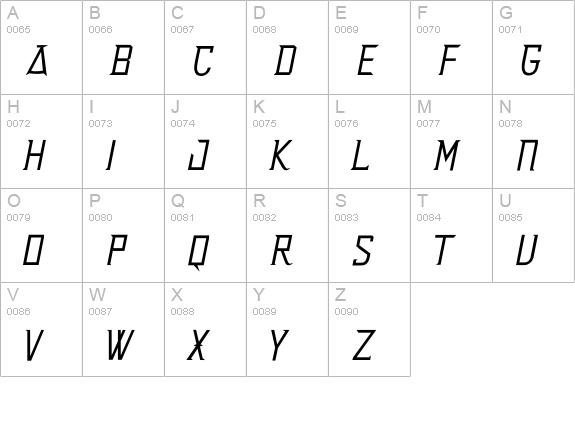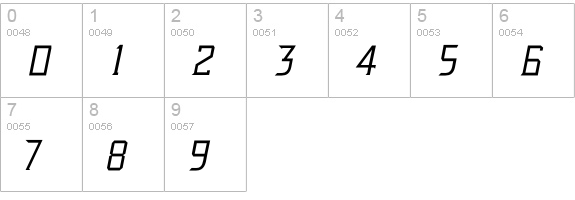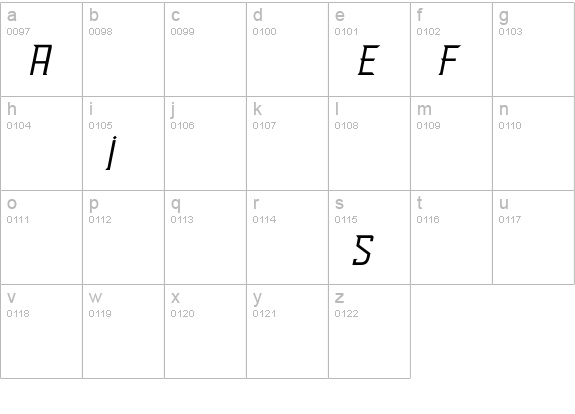
Delux-Normal is the standard, neutral variant in the Delux typeface family \xE2\x80\x94 well suited to general body text, paragraphs, and standard typographic work.
The Delux-Normal font is a sleek and stylish typeface that exudes modernity and sophistication. With its clean lines and elegant curves, this font is perfect for a wide range of design projects, from branding to editorial layouts. Its versatility makes it a go-to choice for designers looking to add a touch of refinement to their work. What sets Delux-Normal apart is not only its aesthetic appeal but also its accessibility. This high-quality font is available for free download at FontsMarket.com, making it easy for anyone to incorporate it into their projects. Whether you're a seasoned designer or just starting out, Delux-Normal is a valuable addition to your font library. Get your hands on this stunning typeface today and elevate your designs with its timeless beauty.